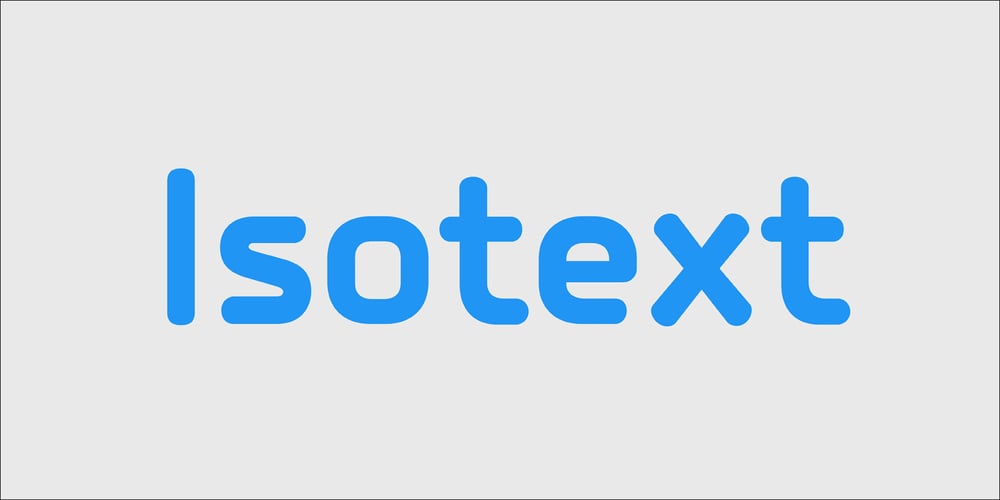
PF Isotext Pro Font Family was designed by Panos Vassiliou and published by Parachute. PF Isotext Pro contains 6 styles and family package options. This typeface is based on ISO 3098, a technical documentation issued in 1974 by ISO (International Organization for Standardization), which proposed a set of characters for use on technical drawings and associated documents. Isotext is based on the original standards but is completely redesigned to fit typographic requirements. This new ‘Pro’ version is further improved and now comes with a complete set of redesigned true-italics. Furthermore, the width of the glyphs has increased in order to establish a more balanced and readable text. The result is a contemporary font which works well in small sentences as well as long texts. Isotext Pro is loaded with all the good stuff a designer needs to create documents with attitude. It supports 19 special OpenType features like small caps, fractions, ordinals, etc. and offers multilingual support for all European languages including Greek and Cyrillic. Finally, every font in this family has been completed with 270 copyright-free symbols, some of which have been proposed by several international organizations for packaging, public areas, environment, transportation, computers, fabric care and urban life.